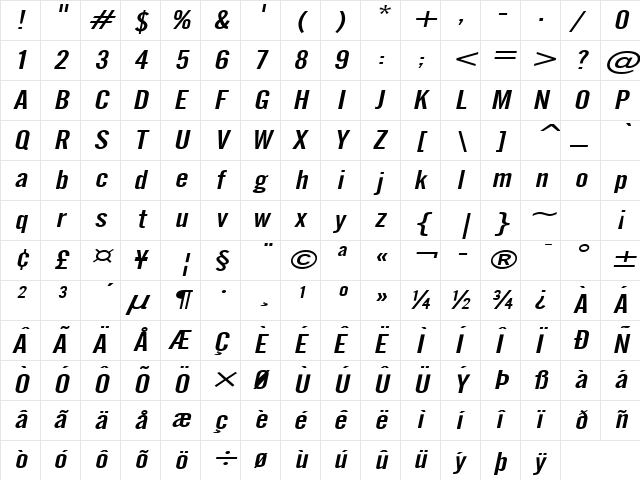
Complete Eng Gothic Extended Italic glyph index. Displaying only characters natively supported by Eng Gothic Extended Italic font.
Eng Gothic Extended takes a clean, functional approach - its unadorned letterforms prioritise legibility and work reliably across screen and print environments. The slanted form adds forward momentum and visual energy.
Font Pairing: Works well alongside a characterful serif or display font that can carry the expressive load while Eng Gothic Extended handles the functional copy.
Pro Tip: Use Eng Gothic Extended for UI labels, navigation, and short-form body copy where clean legibility is the priority.